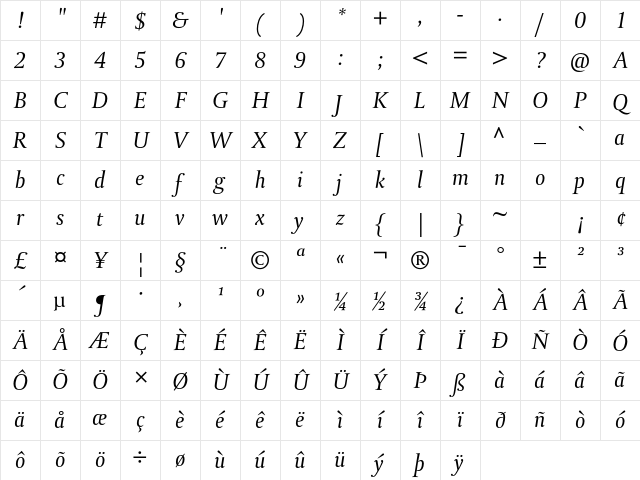
DTL Paradox T Italic
Style: T Italic
Design Context for DTL Paradox
DTL Paradox is a composed and adaptable typeface that performs quietly and consistently across a wide range of design contexts. The slanted form adds forward momentum and visual energy.
Pro Tip: Use DTL Paradox for emphasis, pull quotes, and subheadings where its slanted energy can add rhythm to the layout.